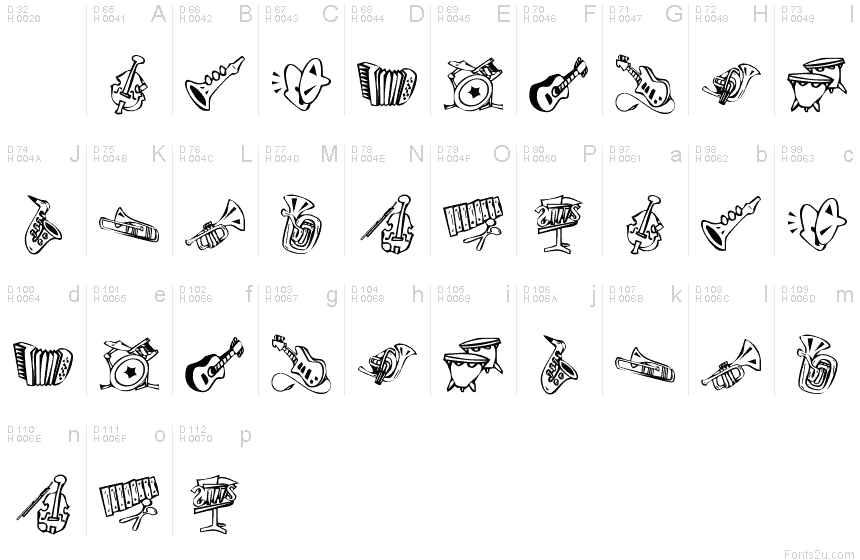
KR Music Class
KR Music Class by Katsfunfonts is a free music-themed dingbat font with hand-drawn instrument icons. The outlined forms keep the set loose and casual, with just enough detail to suggest school band pieces without becoming fussy.
KR Music Class fits recital programs, classroom worksheets, band camp flyers, student certificates, and music room signs when you need small decorative markers rather than full illustrations. It also works nicely for borders, label strips, and invitation accents, where the instrument shapes carry the theme without crowding the layout.